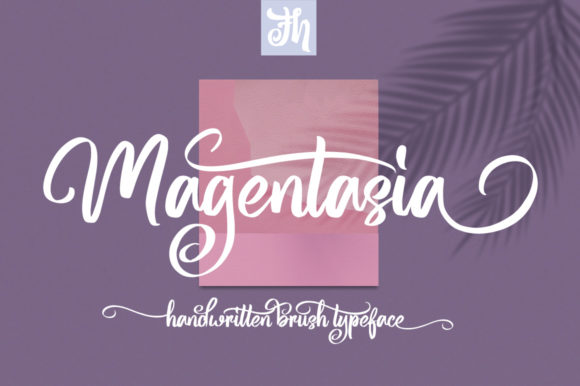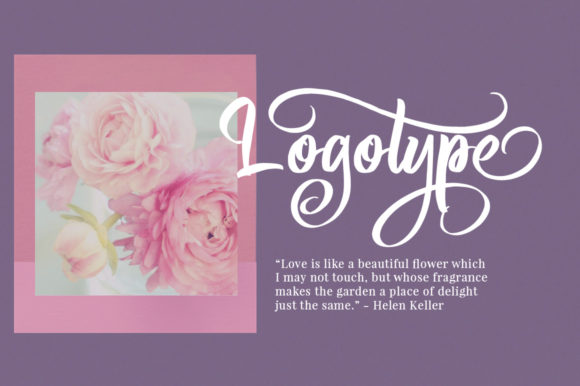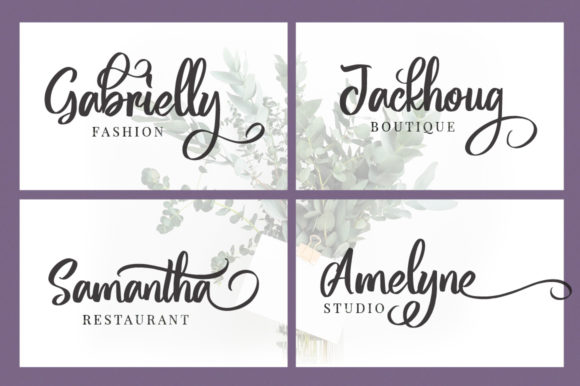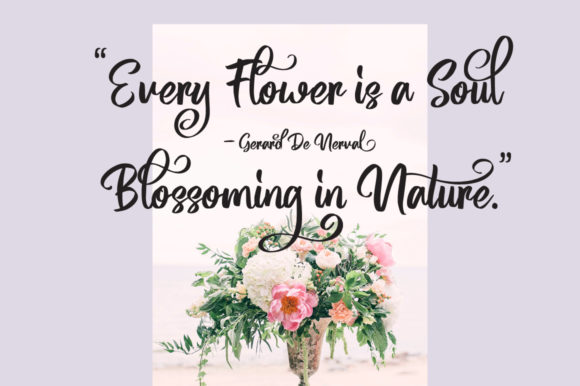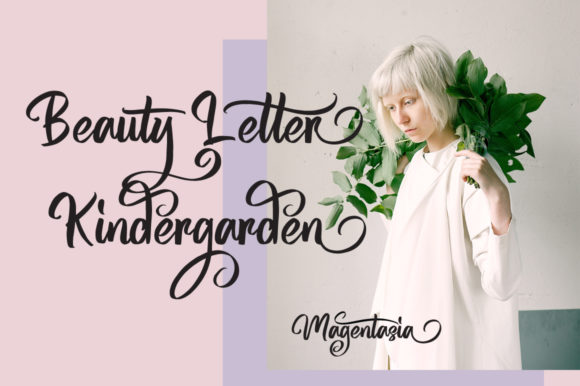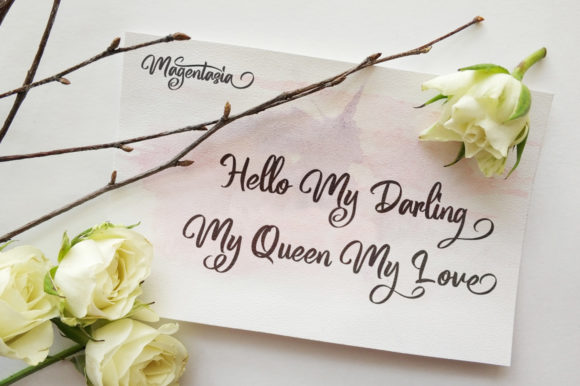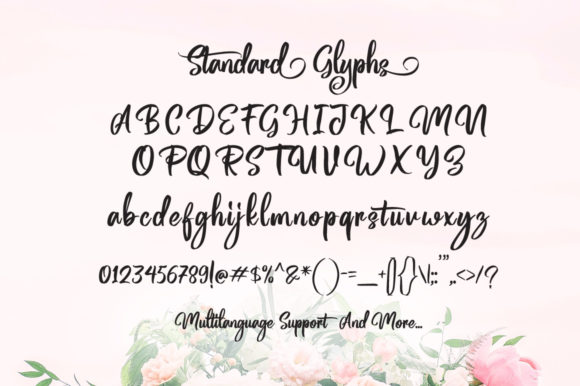
HomeScript FontsMagentasia Font Script Fonts Magentasia Font FacebookXPinterestWhatsApp Magentasia Font Poster 2 Magentasia Font Poster 3 Magentasia Font Poster 4 Magentasia Font Poster 5 Magentasia Font Poster 6 Magentasia Font Poster 7 About Magentasia Font Magentasia is a charming handwritten font with exciting flourishes. Great for many different design projects! DOWNLOAD ON CREATIVE FABRICAThis font is sold and delivered by Creative Fabrica. Font Canyon may earn a commission if you buy through this link. People also explored Star Glory Font The Bagenda February Font Circum Font Hello Christmas Font Smithe Signature Font Beautiful Farmhouse Font Just Married Font Reggina Font 356 0 TagsMagentasia Font Previous articleButter Swany FontNext articleArtefellia Font LEAVE A REPLY Cancel reply Comment: Please enter your comment! Name:* Please enter your name here Email:* You have entered an incorrect email address! Please enter your email address here Website: Save my name, email, and website in this browser for the next time I comment. Personal Use Free Omellia Personal Use Free Read more about this font Legacy Personal Use Free Read more about this font My Ugly Handwritting Personal Use Free Read more about this font Stone Cold Personal Use Free Read more about this font BLOG Top 7 Google Fonts Alternatives for Faster and Privacy-Friendly Web Design (2025) Top 7 Google Fonts Alternatives for Faster and Privacy-Friendly Web Design (2025) When it comes to web typography, Google Fonts has long been the go-to... Elegant Wedding Invitation Fonts – Handwritten & Script Fonts Using Fonts in Digital Marketing: Tips to Strengthen Your Brand Identity Modern Sans-Serif Fonts That Brands Love in 2025